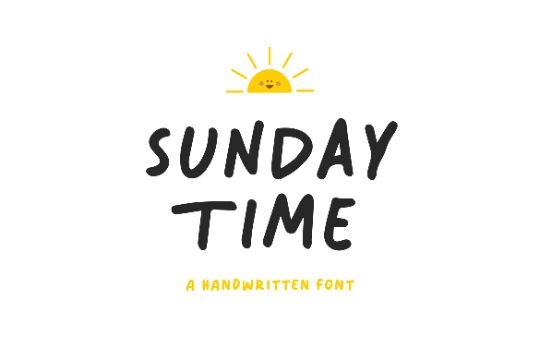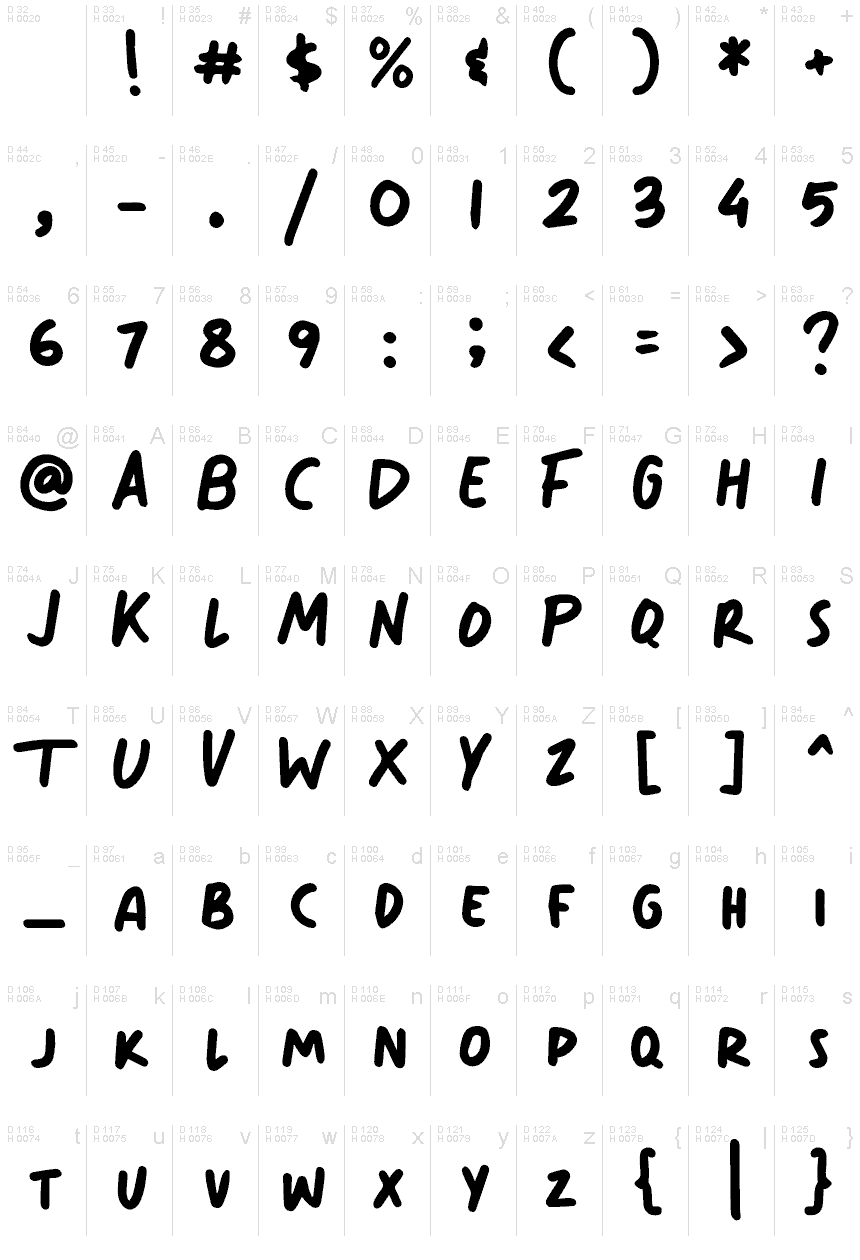
Sunday Time
Sunday Time font by Excellent Ritma Florendia is a bold handwritten font with a casual and modern vibe. It carries a relaxed hand-drawn aesthetic with a smooth flow, giving any project the natural appearance of handwritten text. Inspired by today’s trends and combined with classic elements, this free font brings all your characters to life.
Sunday Time can be added to greeting cards, gift boxes/cards, invitations for weddings and other special occasions, posters and magazine covers/subtitles, packaging designs especially pen wraps and perfumes boxes/labels which are among viewers’ favorite uses.
The Sunday Time Handwritten Font combines creativity with simplicity. This charming handwritten font is perfect for comics, books, greeting cards, toys, posters, clothing, picture books, or any project that requires a fun and cheerful aesthetic.